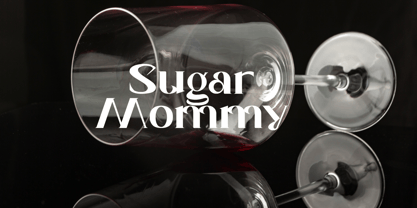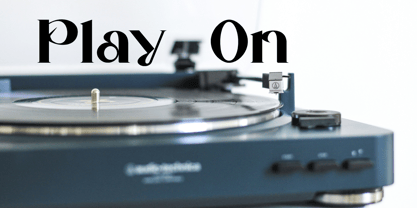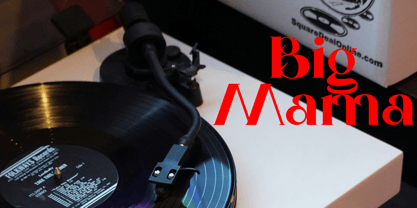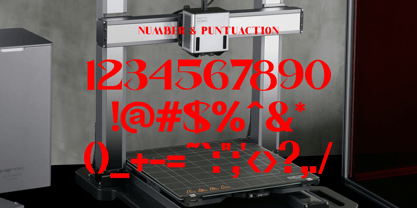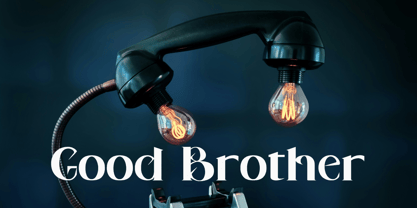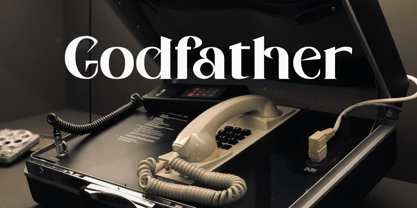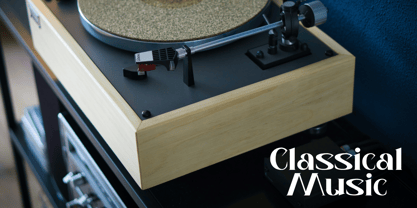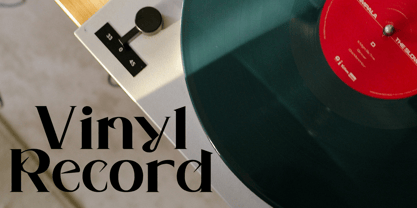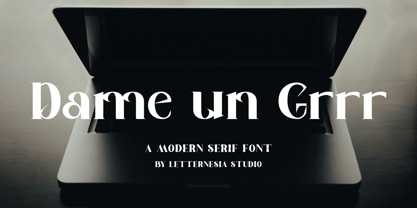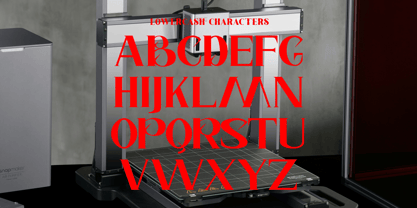
Dame un Grrr
by Letternesia studio
The Dame un Grrr Font Family was designed by Ta Siyo and published by Letternesia studio. Dame un Grrr contains 2 styles and family package options. More about this family
Dame Un Grrr is a bold and untamed display font that bursts with raw energy and fearless attitude. Its sharp edges, expressive strokes, and striking shapes create a sense of power and movement, perfect for designs that demand attention. Inspired by street culture and rebellious spirit, this font brings a wild yet stylish edge to your creative projects. Whether you’re designing music posters, gaming titles, bold branding, or social media graphics, Dame Un Grrr delivers a loud statement that refuses to be ignored. Let your message roar with unstoppable style and confidence.
Designers: Ta Siyo
Foundry: Letternesia studio